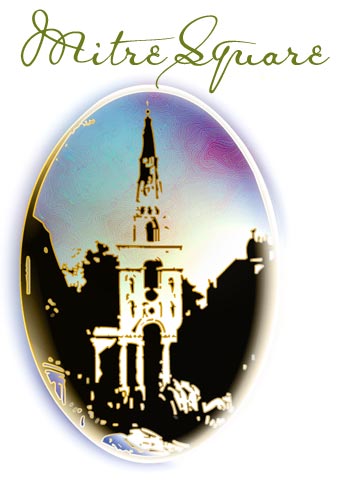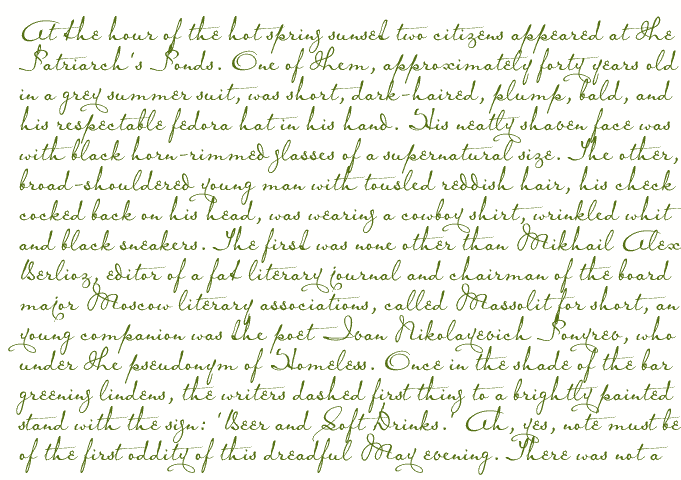
This rather dainty font has a rather sinister background Luckily, this copy has come upon us, and a facsimile of it is included in that fascinating folder "Jack the Ripper and the Whitechapel murders. The true story through contemporary documents", edited by Stewart P Evans and Keith Skinner (Public Record Office/The National Archives). At least, for my part, I was fascinated by the discovery that the Ripper case has more to offer than heaps of lousy scrawls, scribbled lefthandedly by greedy tabloid editors, unscrupulous hacks, and giggling perverts -- all of them eagerly trying to pass themselves off as a serial killer who is very much in control of his hand when using a knife, but for the life of him can't produce a straight stroke when holding a pen (and, believe me, even the Lusk Letter is as fake as they come). I'd never have bothered with any of their concoctions. The McWilliam report is quite a different matter. Whoever created that copy, had clearly calligraphic aspirations. Even among the other police reports in the folder, this one stands out as an aesthetic achievement, and a miracle of elaborate elegance. Moreover, when I chanced on that folder, I had been for some time in search of a pattern for a Victorian font -- since I'm not altogether happy with frequently seeing the JaneAusten font used as such. It's wrong on more than one level. For crying out loud, Jane Austen was Regency ... she was dead, and in her grave, before Queen Victoria was ever conceived! Worse, Jane Austen used quill pens to write May I plead with you, then, whenever you want to create a Victorian look by using one of my fonts, not to do an injustice to Jane Austen, but to go for the MitreSquare font instead (even though there is neither a famous name, nor, sadly, any name at all, attached to it)? Pretty please...? As for the font's characteristics, the McWilliam copist used two different es, and an amazing number of different ts. I've chosen the more frequent e, though it's the less conventional one, and have included as many differnt ts as I could cram into the font. On the other hand, I didn't go along with the copist's most frequent s On the number sign of the MitreSquare font, you'll find the copist's number sign (N°), for a change. The other alternate characters are
Opening paragraph of the novel The Master And Margarita by Michail A. Bulgakov;